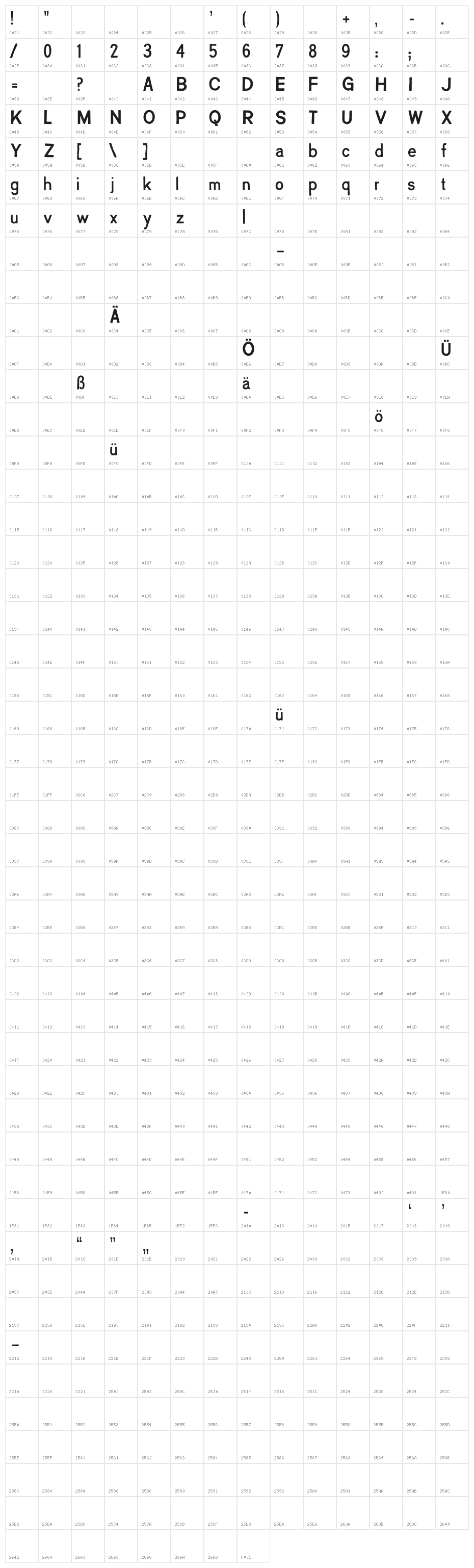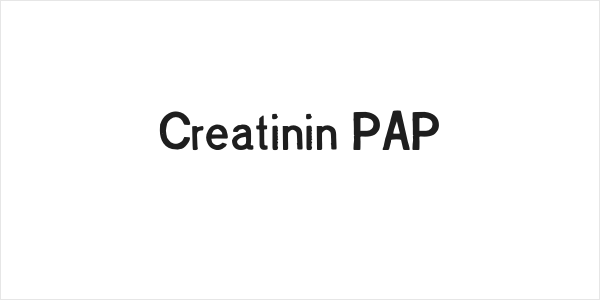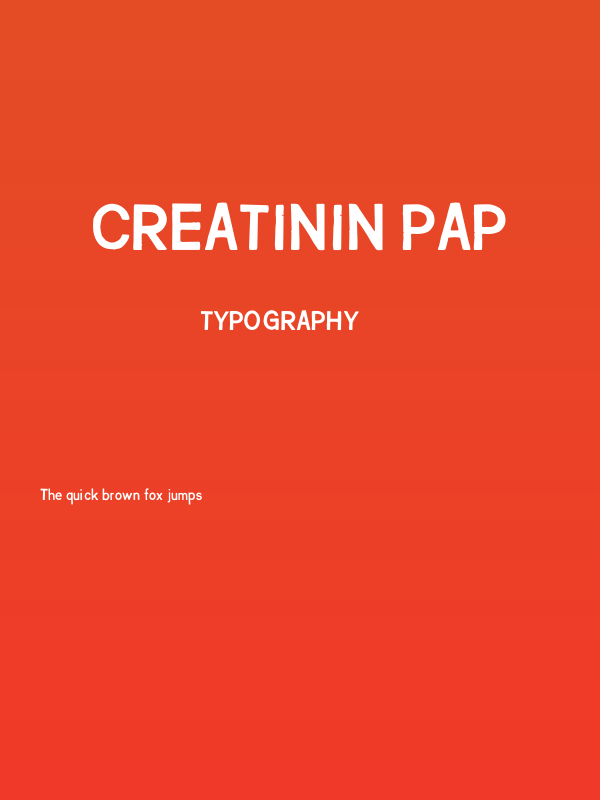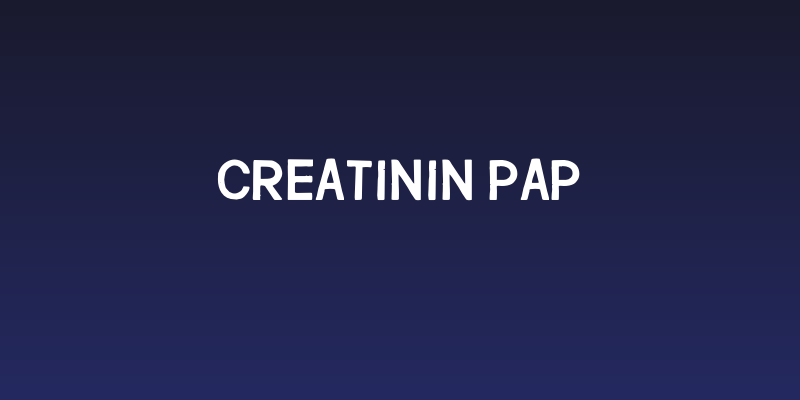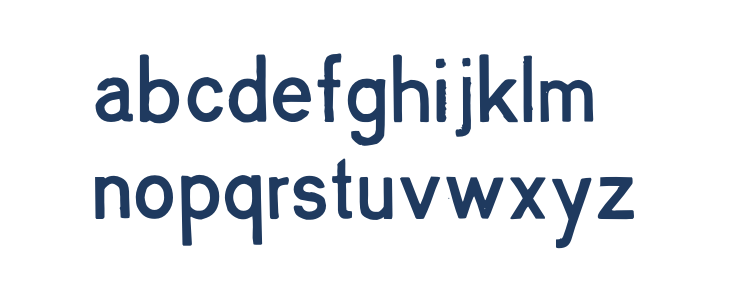
Creatinin PAP Font
Creatinin PAP Description
This font features a bold and slightly condensed style, characterized by its rounded and smooth edges. The uppercase letters are uniform in height, providing a clean and structured appearance. The lowercase letters maintain a consistent x-height, contributing to readability. The numerals are distinct and well-proportioned, ensuring clarity in numerical data. Special characters are designed with simplicity, enhancing the font's versatility. The overall design is modern and functional, making it suitable for various applications.